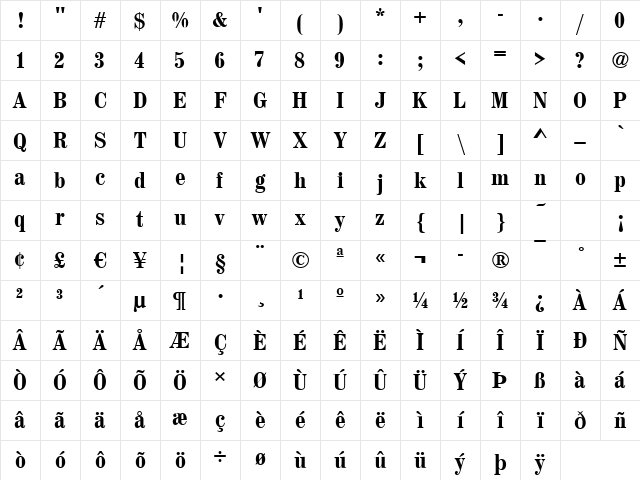
Madeira-Cd-Medium Regular
Design Context for Madeira-Cd-Medium
Madeira-Cd-Medium is a composed and adaptable typeface that performs quietly and consistently across a wide range of design contexts.
Pro Tip: Use Madeira-Cd-Medium in both headline and body roles to test its range before committing to a single application.